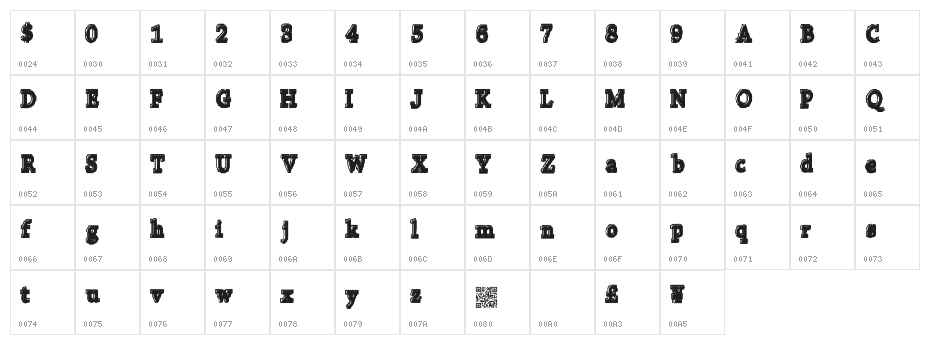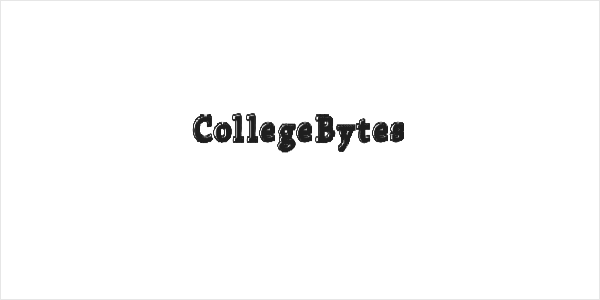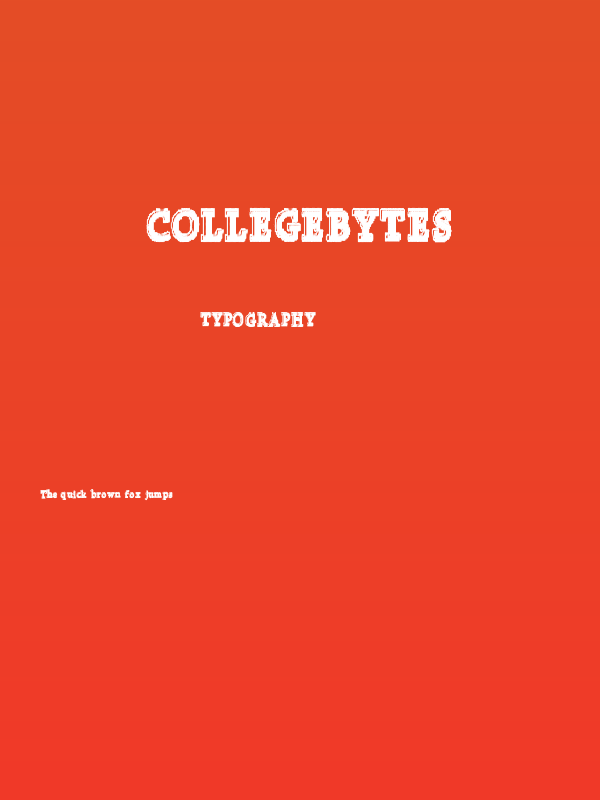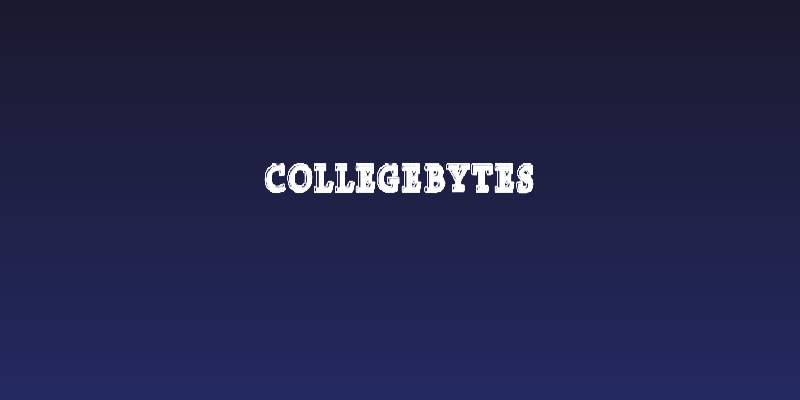
CollegeBytes Font
CollegeBytes Description
This font features a bold, textured style with a vintage flair, reminiscent of collegiate or varsity themes. The uppercase letters are prominent and commanding, while the lowercase letters maintain a consistent weight and style. The numbers and special characters share the same bold and textured appearance, making them stand out. The font's design is characterized by its slab serif elements, giving it a strong and sturdy look. The texture within each character adds a unique, slightly distressed effect, enhancing its vintage appeal.
| Overall Style | Vintage |
| Use Case | Logos, Posters, Apparel |
| Proposed Projects | Ideal for sports team branding, college-themed apparel, posters, and retro-style logos. |